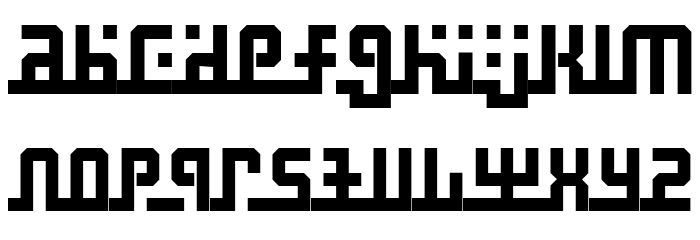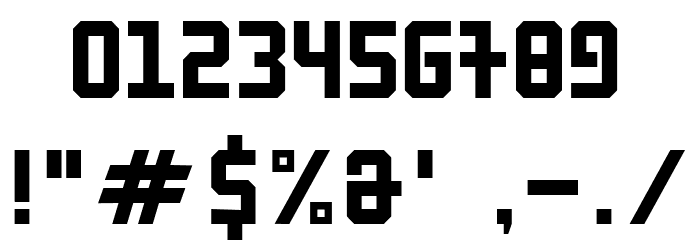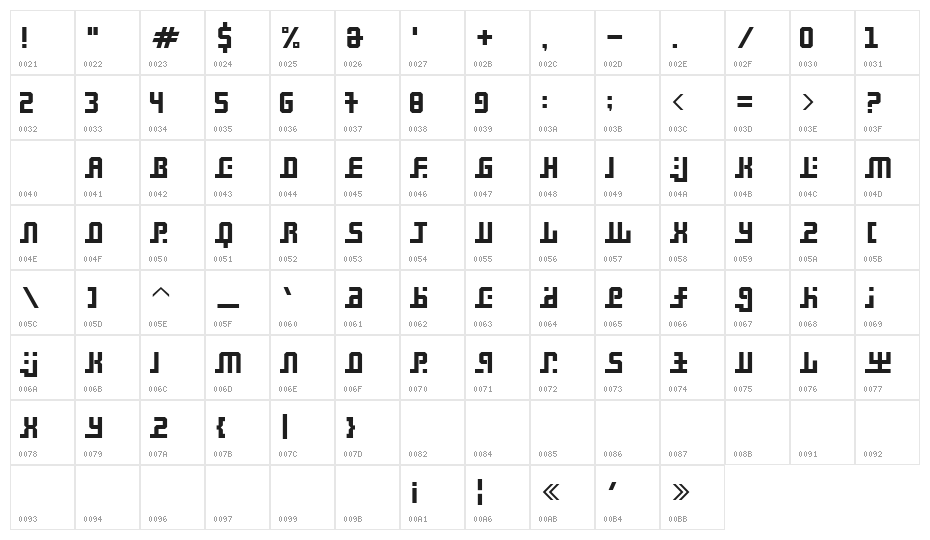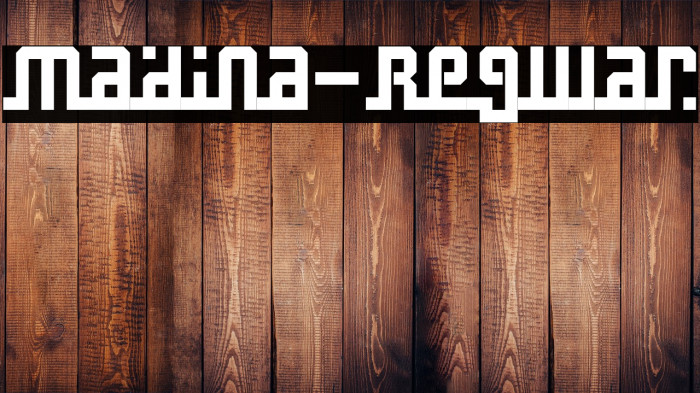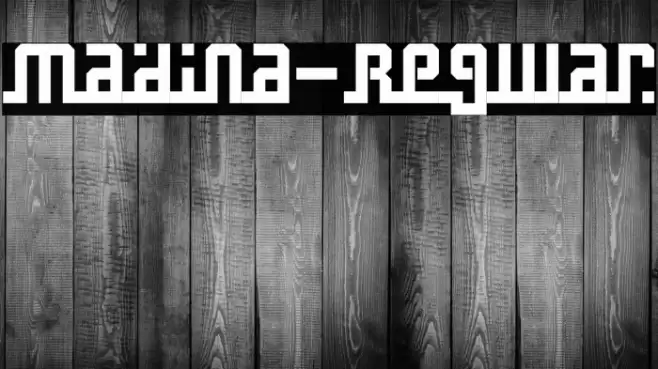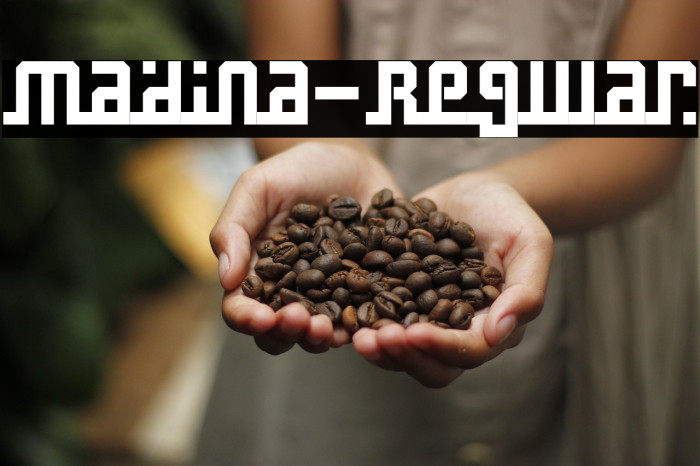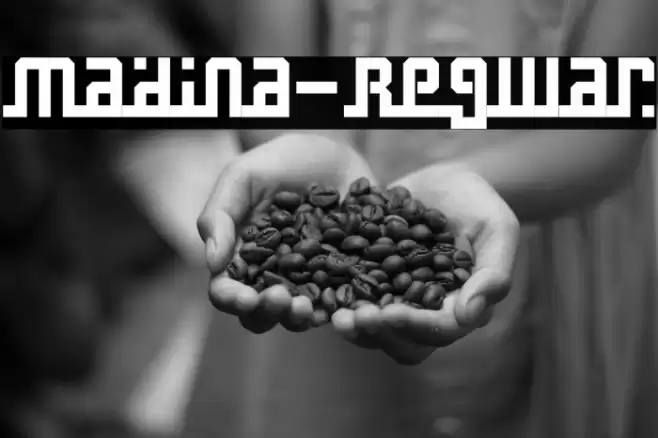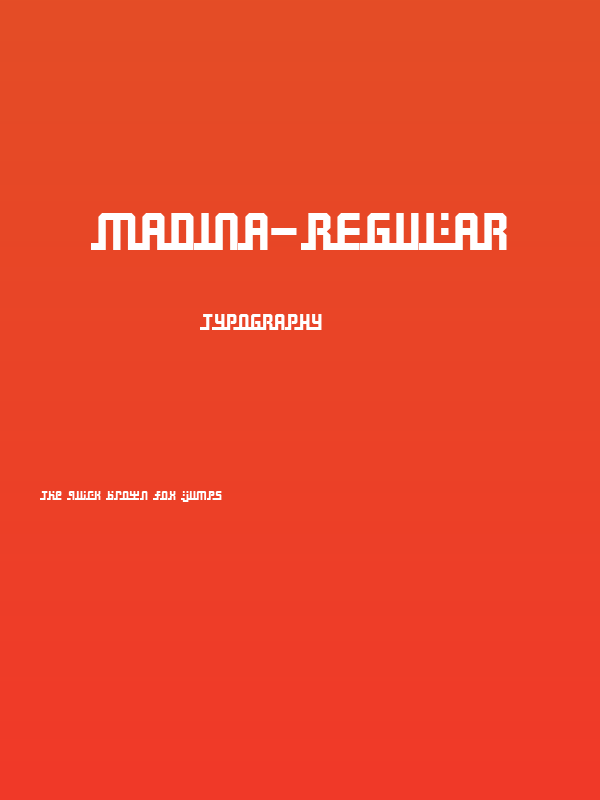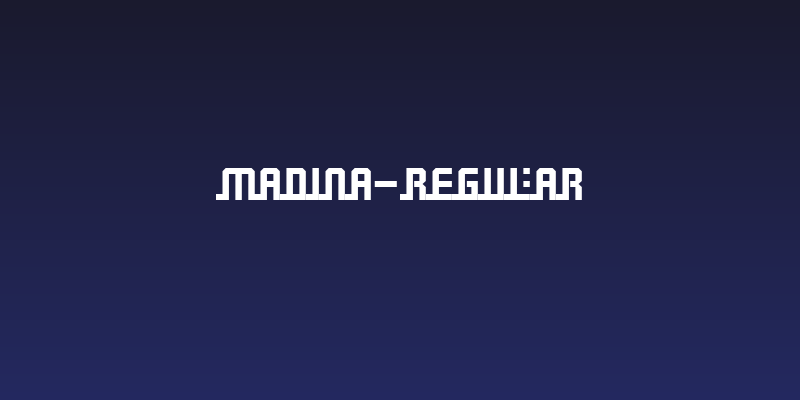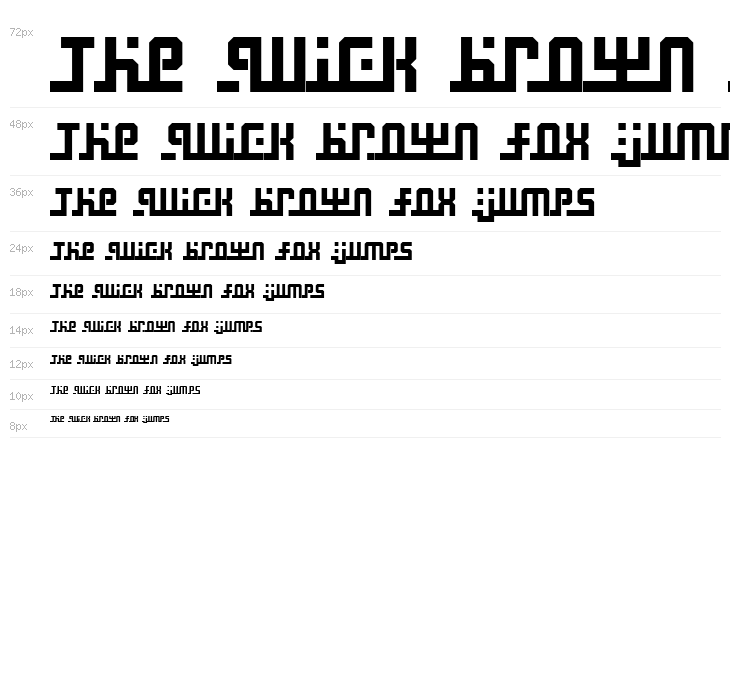
Madina-Regular Font
This font features a bold, geometric design with a distinctly modern and futuristic feel. The characters are constructed with sharp angles and straight lines, creating a blocky appearance that is both striking and unique. The uppercase and lowercase letters maintain a consistent height, contributing to a uniform look across the text. The numerals and special characters are designed to match the angular style, ensuring cohesion throughout. This font's boldness and geometric structure make it ideal for attention-grabbing designs.
- Proposed Projects: Ideal for branding, posters, video game graphics, and sci-fi themed projects.